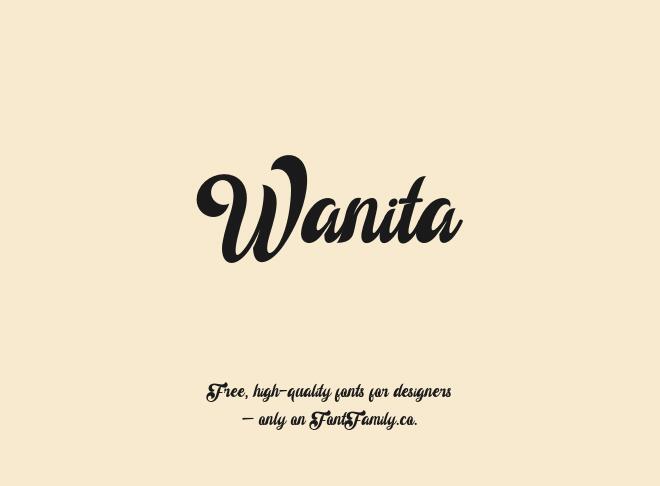
Wanita Font
Wanita Font is a beautifully crafted script font with a handwritten touch. Designed by Creative Mind Studios, this elegant script typeface is perfect for a multitude of design projects, from invitations to personal branding, and everything in between. Its fluid and natural strokes mimic the art of handwriting, lending a personal touch to your designs. Wanita Font stands out from other script fonts due to its unique blend of simplicity and sophistication. With its free personal use license, it's a popular choice among designers for creating eye-catching headlines, logos, and promotional content. The font's versatility makes it a must-have in every designer's toolkit. Its elegant design style makes it a great choice for luxury branding and high-end product designs. Download Wanita Font today to add a touch of elegance to your next project.